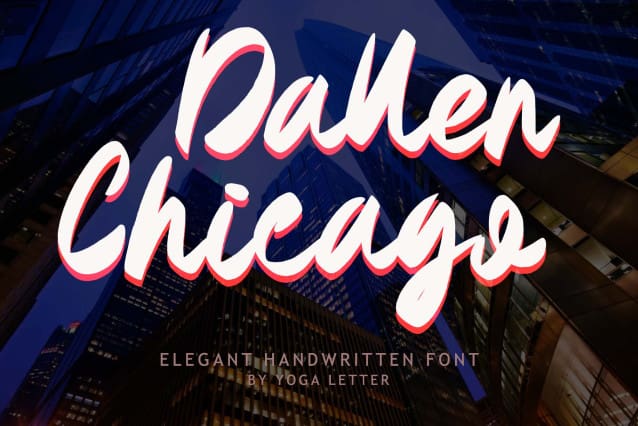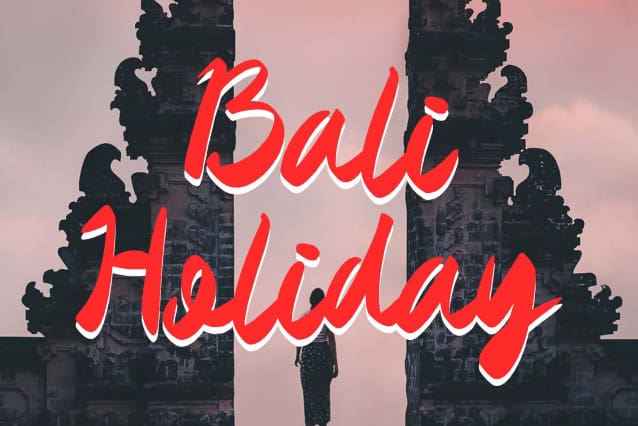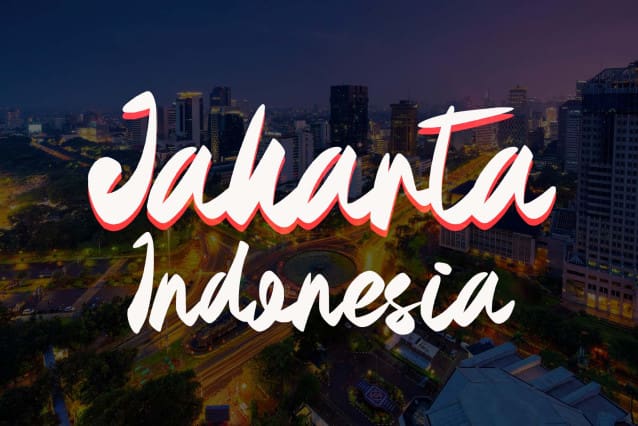
Dallen Chicago Font
Dallen Chicago Font is a unique and elegant handwritten font. It comes with capital letters, lowercase letters, numbers, ligatures, punctuation, and multilingual support. It is perfect for business branding, posters, stickers, Christmas, winter, New Year, Valentine, invitations, etc.